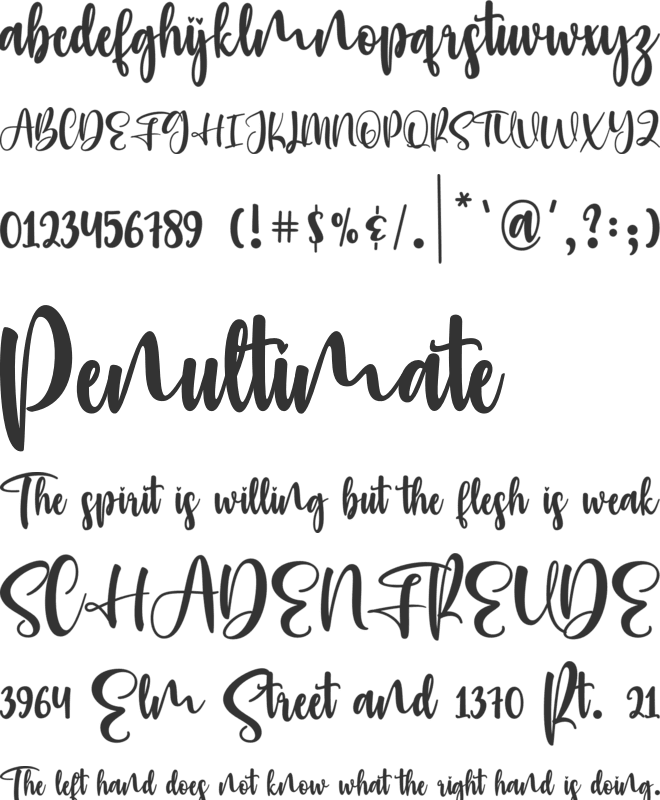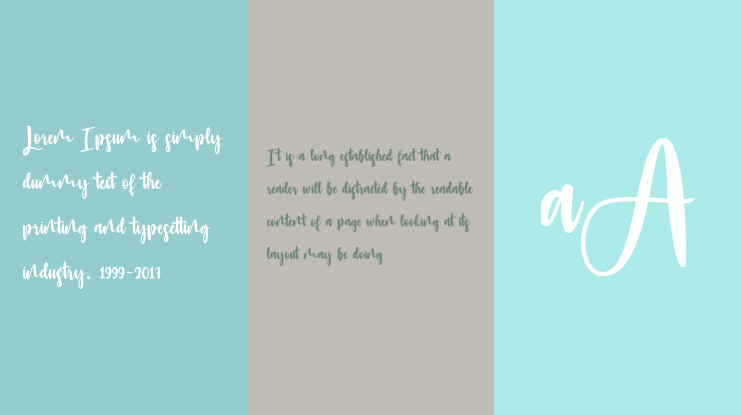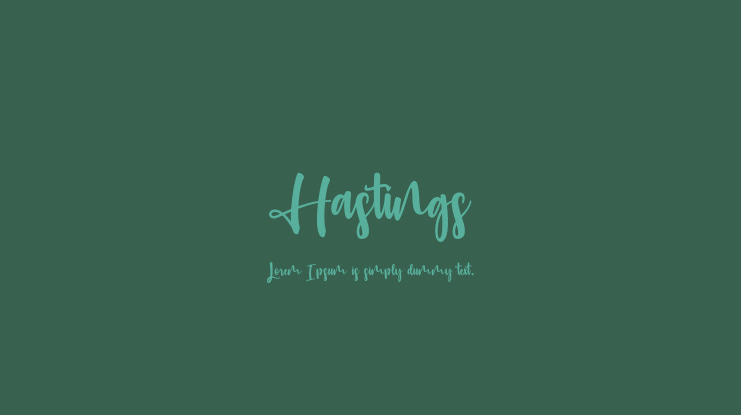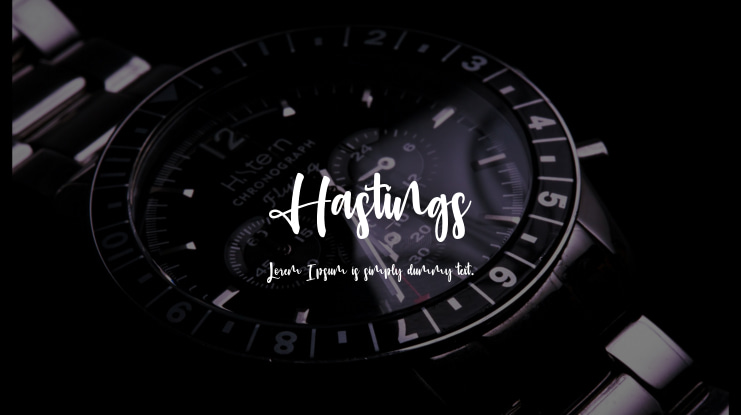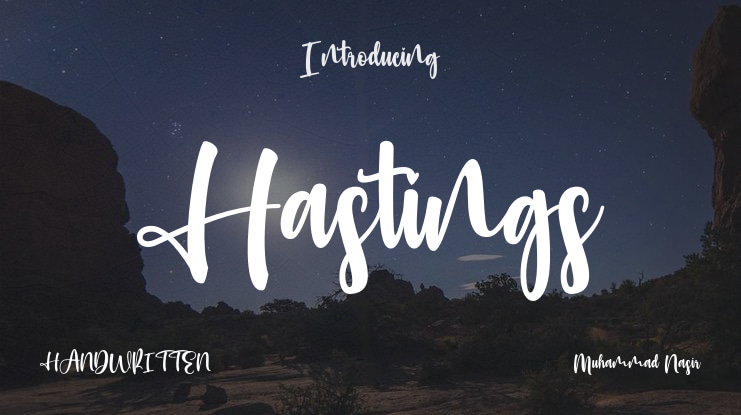
Hastings Font
Muhammad Nasir
Hastings Handwritten is a charming and elegant script font that captures the essence of personal, handwritten notes. With its smooth curves and organic strokes, it brings a warm and personal touch to any project, from wedding invitations to social media graphics. This font effortlessly combines sophistication with a casual, friendly vibe, making it perfect for adding a unique, human element to your designs.